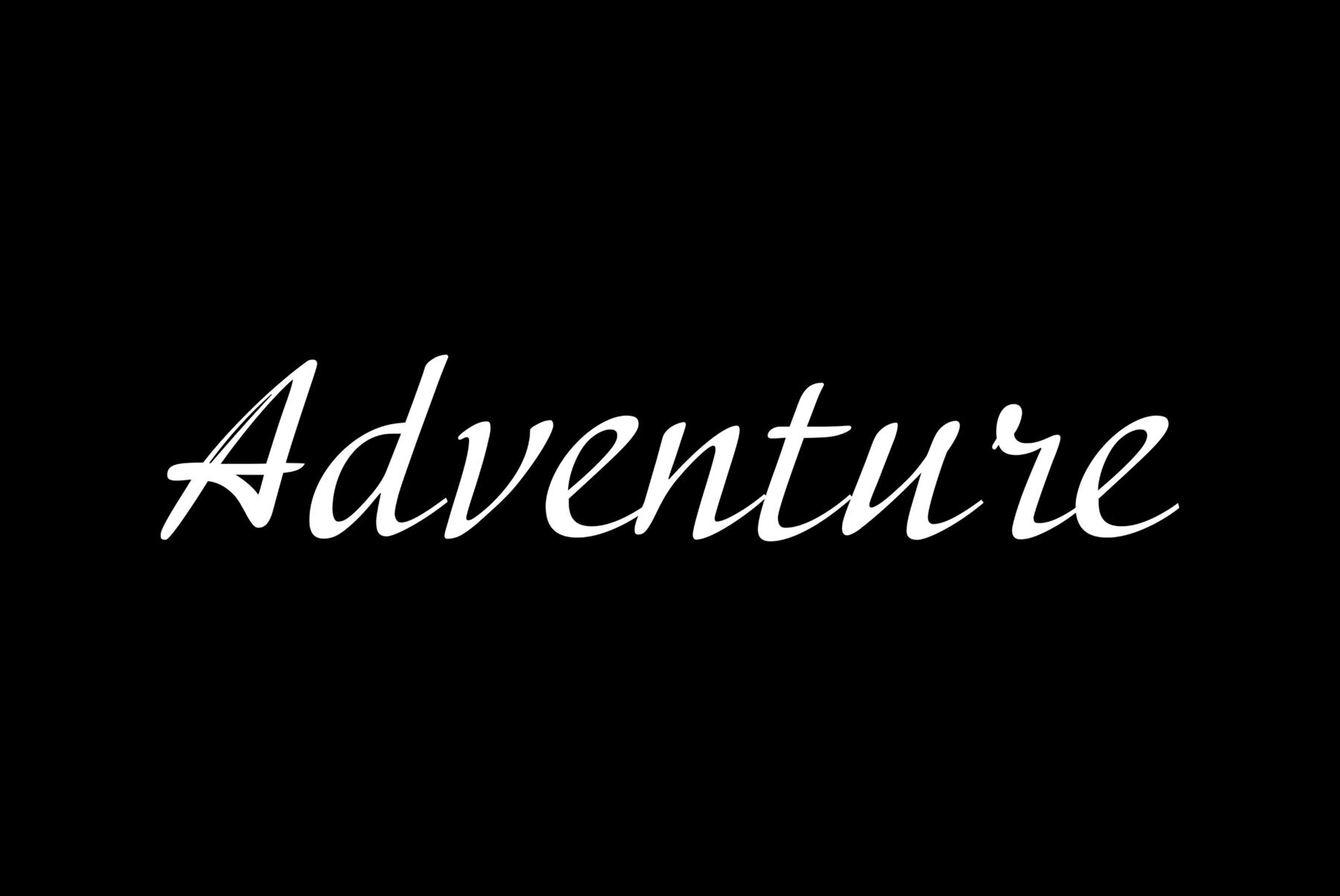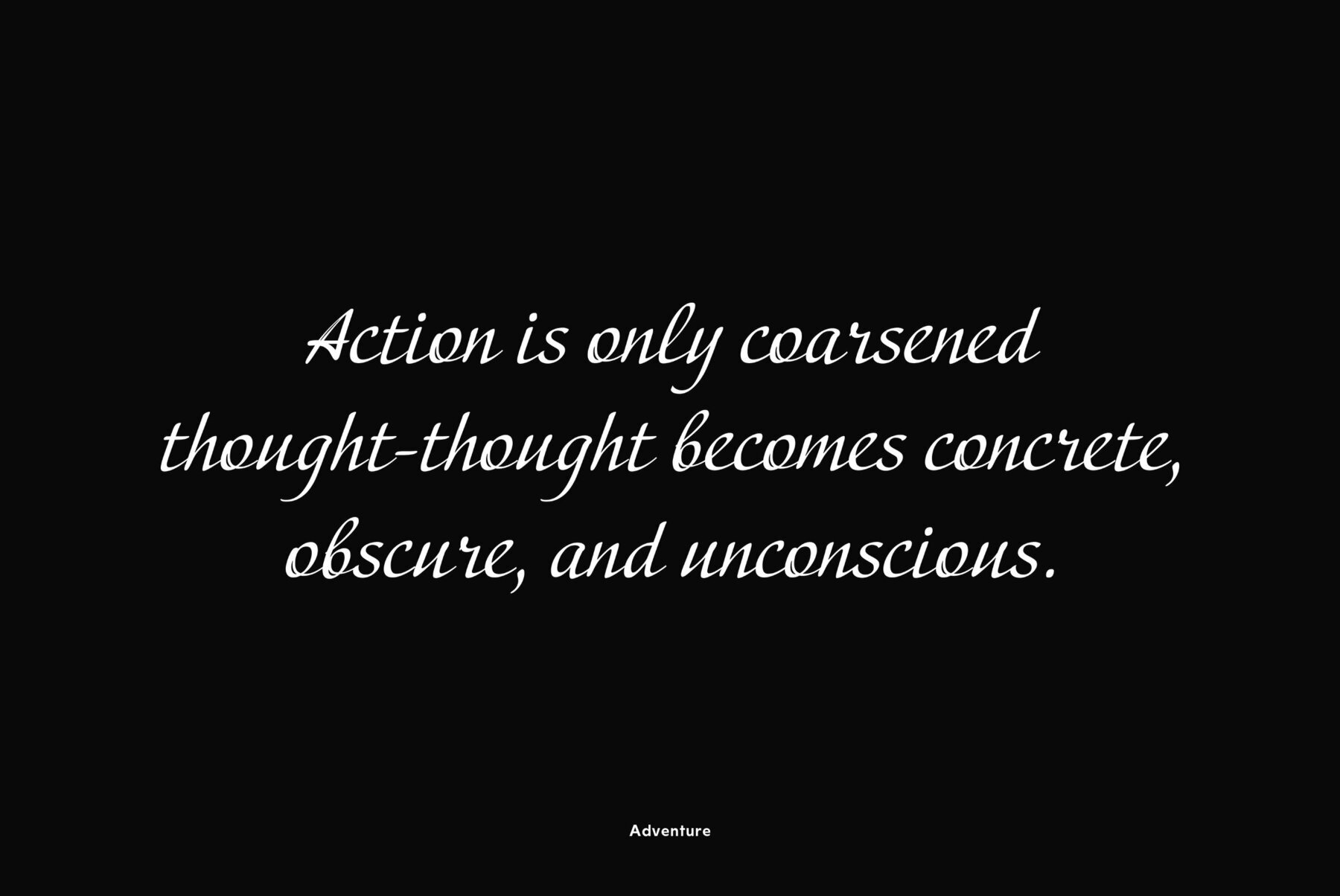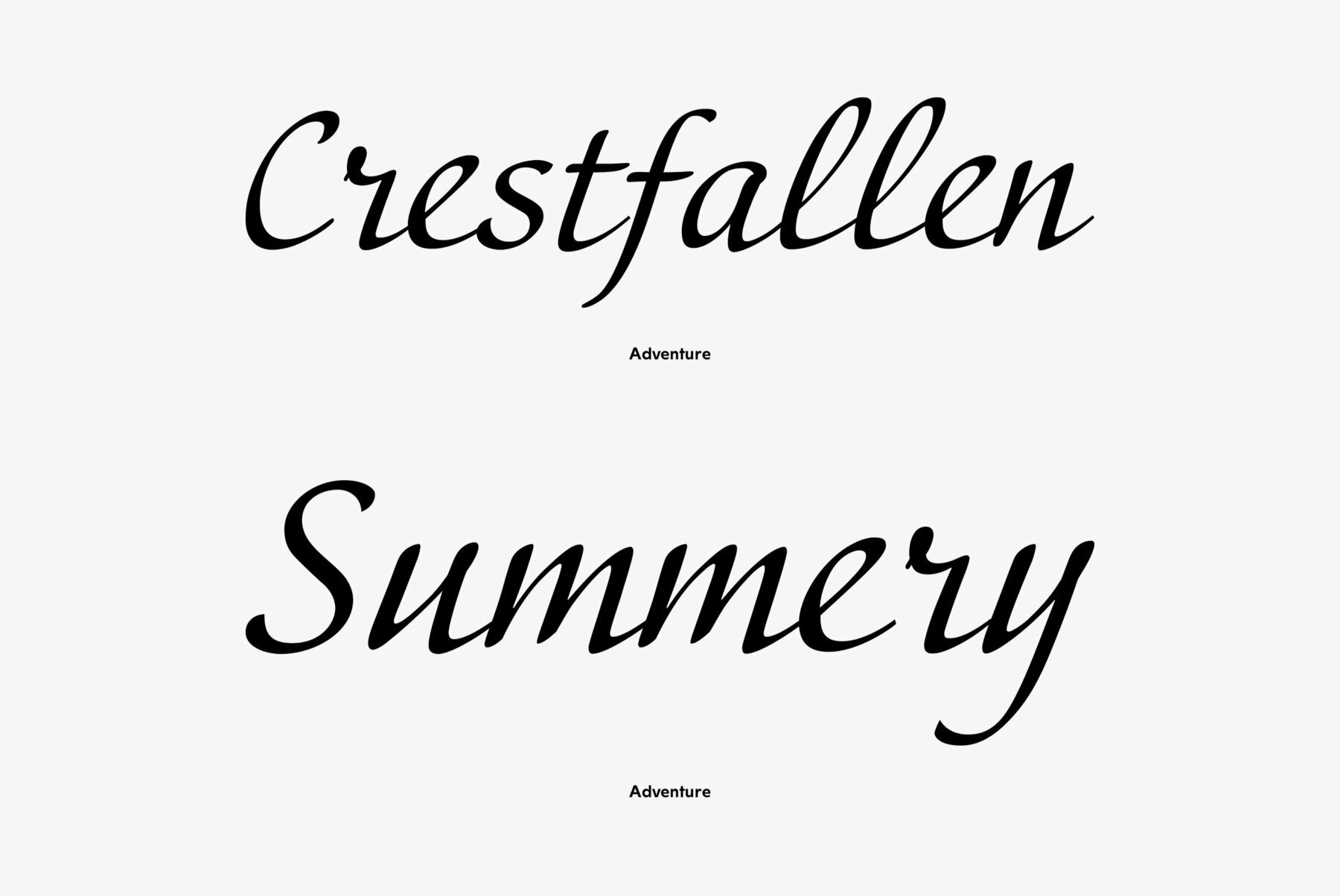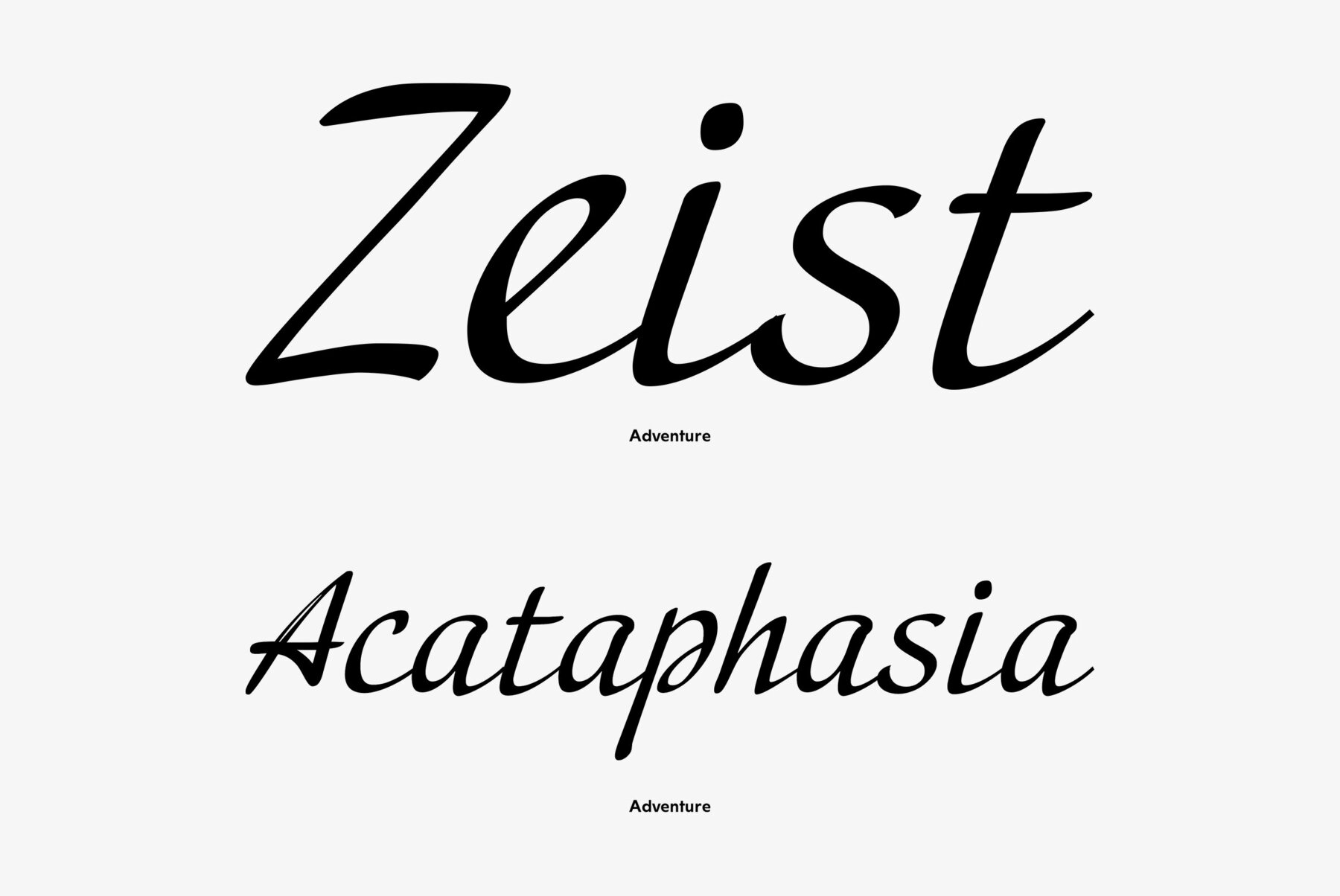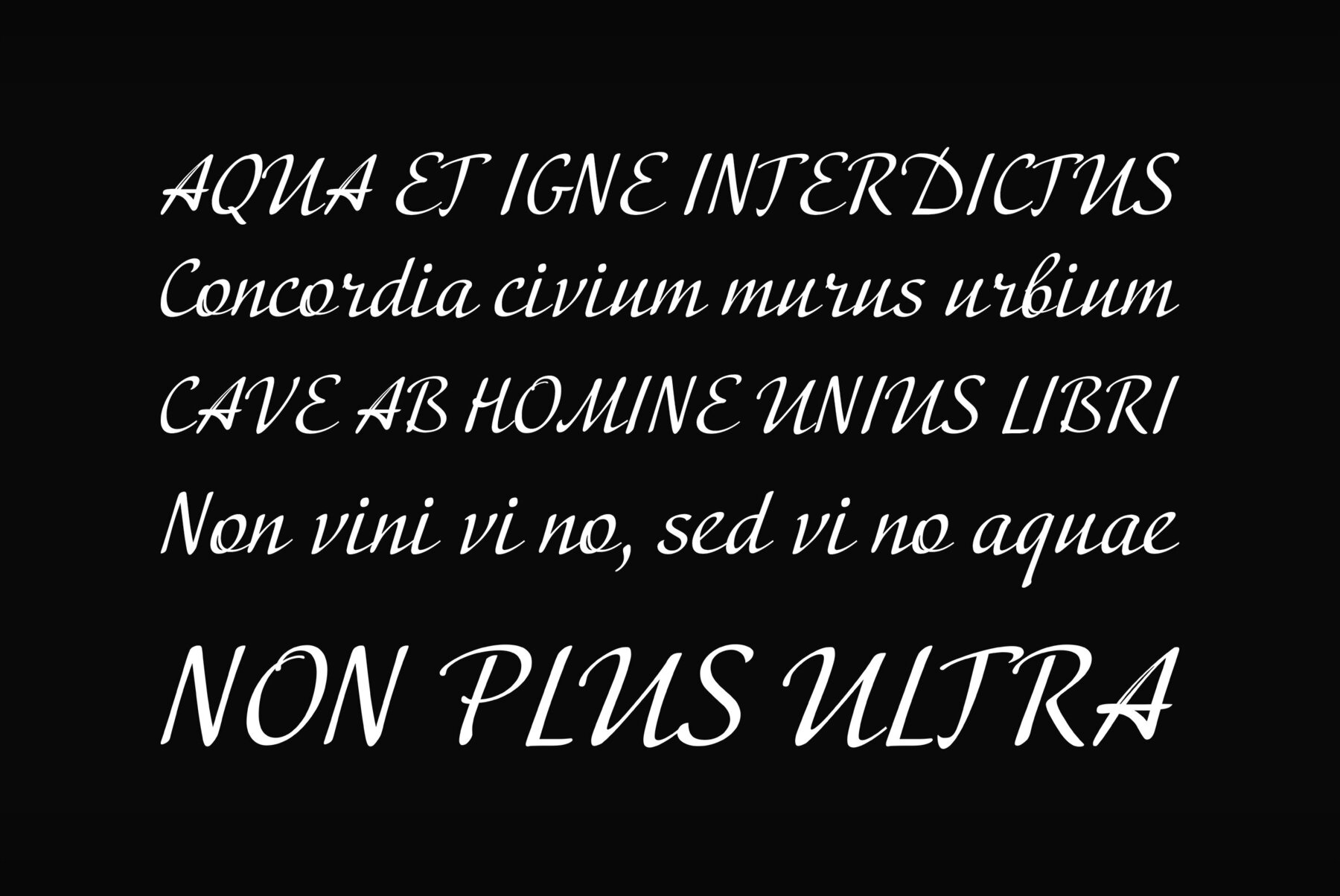
PT Adventure was designed by Natalia Vasilyeva and licensed by ParaType in 2001. An original calligraphic script. For use in advertising and display typography.